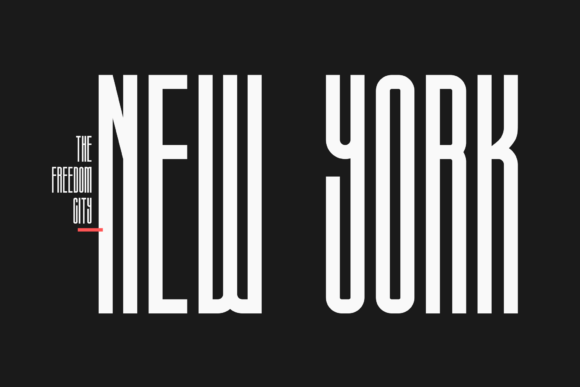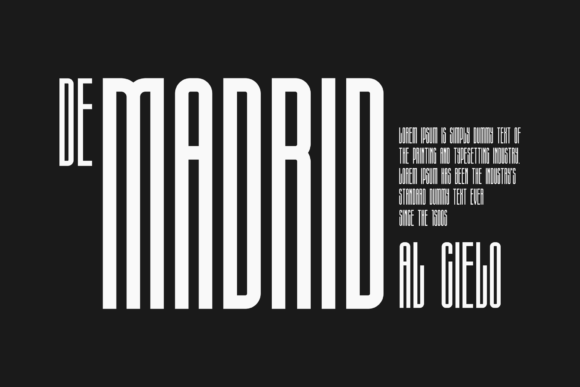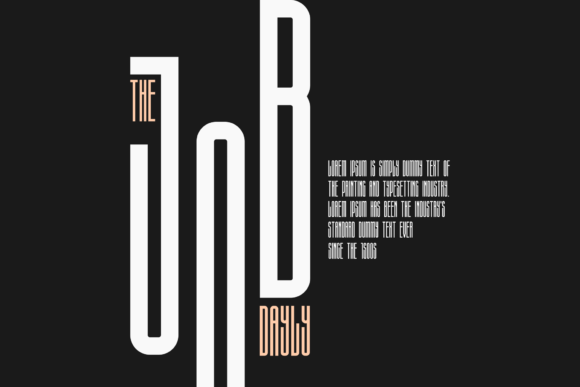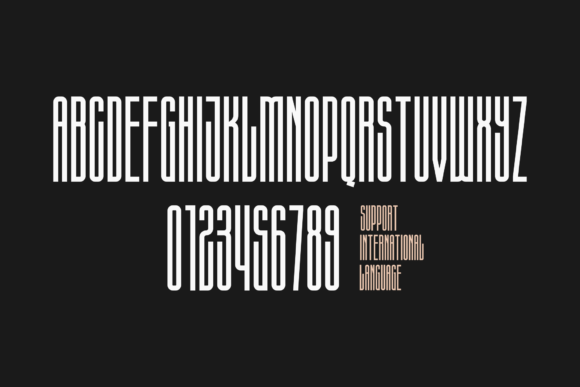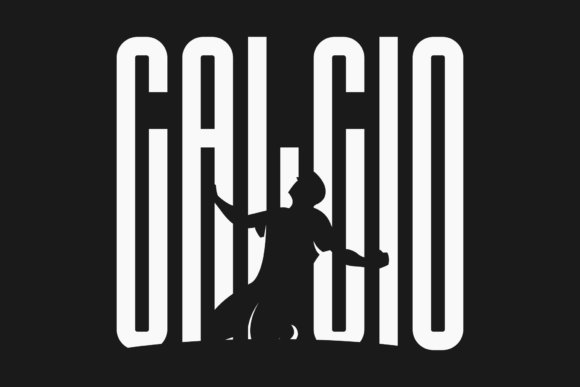
Introducing Calcio Font: The Ultimate Choice for Modern Designers
In the world of typography, a font can make or break a design. With thousands of options available, it can be overwhelming to choose the perfect one. However, if you’re looking for a font that exudes modernity, sophistication, and elegance, look no further than Calcio Font. In this article, we’ll delve into the world of Calcio Font, exploring its features, benefits, and uses, and why it’s becoming a favorite among designers and crafters.
Calcio Font: A Minimalist’s Dream
Calcio – Ultra Condensed has a minimalist character that is sure to captivate your audience. Its sleek and streamlined design makes it perfect for designs where space is limited. The font’s condensed style allows for more text to be fitted into a smaller area, making it ideal for headlines, titles, and captions. The minimalist approach also gives Calcio Font a clean and sophisticated look, making it suitable for a wide range of design applications.
Calcio is perfect for logos, name cards, magazine layouts, invitations, headers, or even large-scale artwork. Its versatility is one of its most significant advantages, making it a go-to font for designers who need a reliable and stylish font for various projects. Whether you’re designing a business card, a brochure, or a website, Calcio Font is sure to make a lasting impression.
Key Features of Calcio Font
- Ultra-Condensed Design: Calcio Font has a sleek and streamlined design that allows for more text to be fitted into a smaller area.
- Minimalist Character: The font’s minimalist approach gives it a clean and sophisticated look, making it perfect for modern designs.
- High Versatility: Calcio Font is suitable for a wide range of design applications, from logos and name cards to magazine layouts and large-scale artwork.
- Ease of Use: The font is easy to read and works well in both digital and print formats.
Benefits of Using Calcio Font
- Stand Out from the Crowd: Calcio Font’s unique and stylish design will help your project stand out from the crowd and leave a lasting impression on your audience.
- Save Time: The font’s ultra-condensed design allows you to fit more text into a smaller area, saving you time and effort in the design process.
- Enhance Your Brand: Calcio Font’s modern and sophisticated look will enhance your brand’s image and help you establish a strong visual identity.
Tips for Using Calcio Font
- Use it for Headlines and Titles: Calcio Font is perfect for headlines and titles, where its bold and condensed design can make a big impact.
- Experiment with Different Sizes: Don’t be afraid to experiment with different font sizes to find the perfect balance for your design.
- Pair it with Other Fonts: Calcio Font pairs well with other fonts, so don’t be afraid to get creative and try out different combinations.
In conclusion, Calcio Font is a game-changer for designers and crafters looking for a modern, sophisticated, and elegant font. Its ultra-condensed design, minimalist character, and high versatility make it perfect for a wide range of design applications. With its ease of use, numerous benefits, and tips for use, Calcio Font is sure to become a favorite among designers and crafters. So why wait? Give Calcio Font a try today and take your designs to the next level!